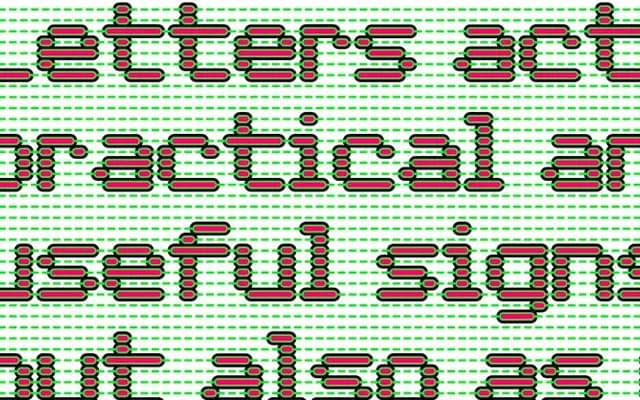
Foundry Dit
The Foundry Types · David Quay · 2003
A dot-matrix display face built on a 5x9 lozenge grid, designed to layer with its companion Foundry Dat for typographic pattern-making.
Each letterform sits on a strict oblong dot-matrix grid of soft, padded lozenge shapes, giving the face a typewriter quality when set as running text. The family pairs with Foundry Dat, which adds a matching grid background so the two can be superimposed precisely to build colour schemes and compositional patterns. Four weights run from Light to Bold, each including extension dashes to continue the grid horizontally and vertically.
Built on a 5x9 dot matrix grid using oblong lozenge shapes, Foundry Dit is a display typeface with a typewriter and dot-matrix character that makes it unsuitable for running text but distinctive as a graphic system.